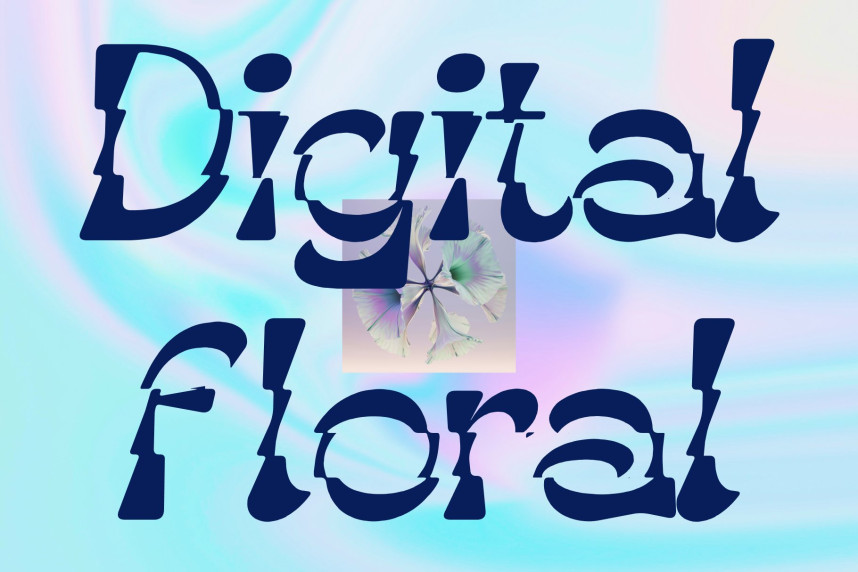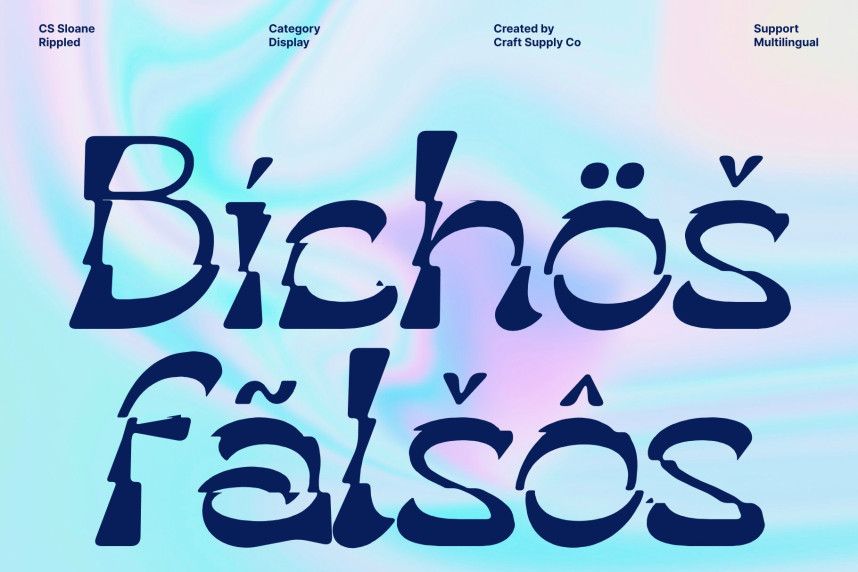
CS Sloane Rippled Font
CS Sloane Rippled Font – Reverse Contrast Font with Liquid 90s Energy
A Bold Fusion of Retro and Modern Design
This is a reverse contrast display font that merges nostalgic 90s aesthetics with bold contemporary design. Featuring thick lower strokes paired with thinner upper sections, the font creates a striking visual rhythm that immediately captures attention. This unconventional structure gives the typography a unique sense of movement and personality.